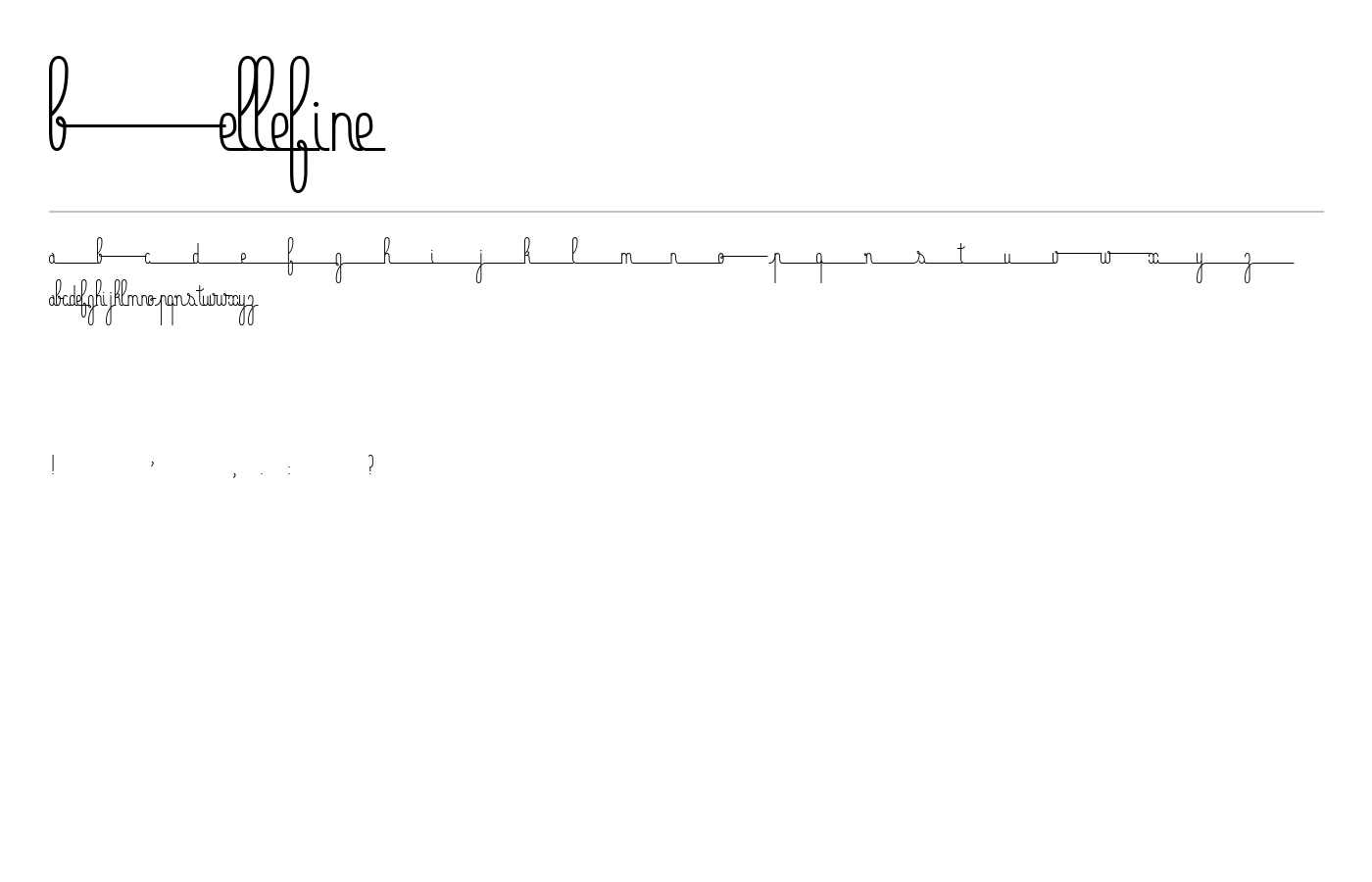
Bellefine is a whimsical, ultra-light script font with very slender, continuous lines creating a delicate and airy feel. Its tall, narrow letterforms with looping connections give it a playful and artistic personality, perfect for creative projects that need a unique and elegant handwritten touch. This font works well for logos, invitations, and decorative headlines where a distinctive and charming style is desired.
Bellefine Font
About Bellefine Font